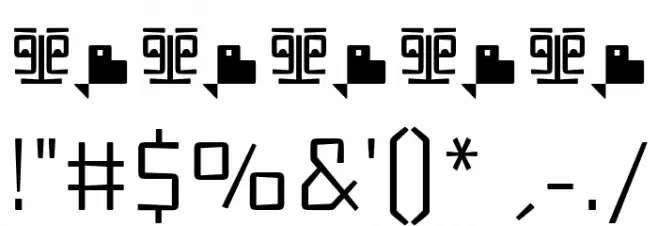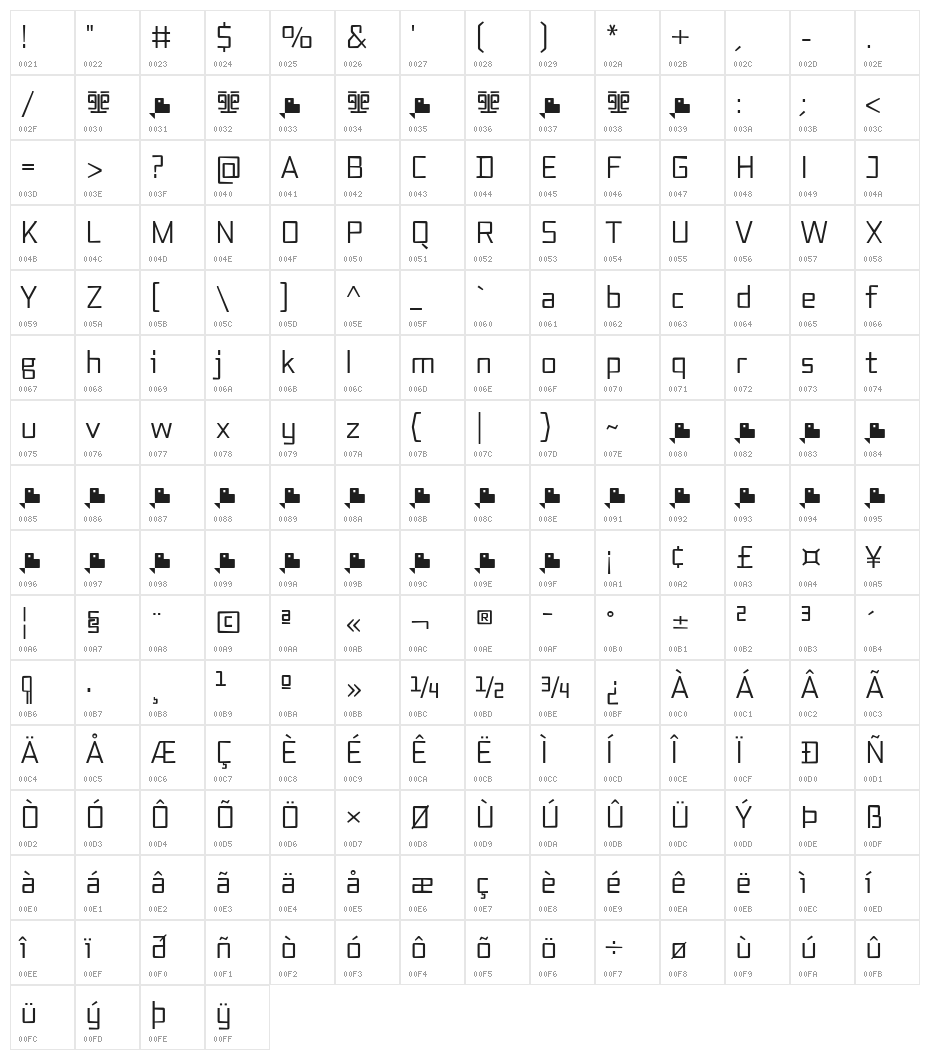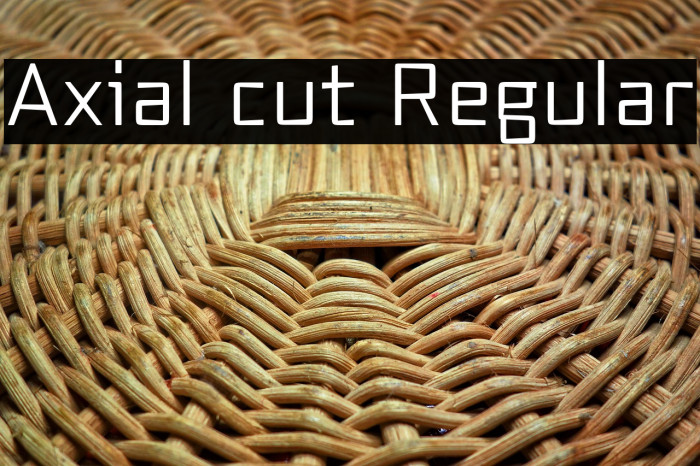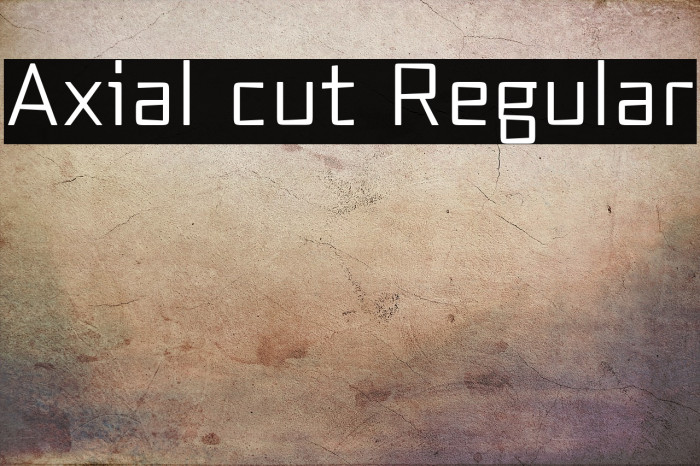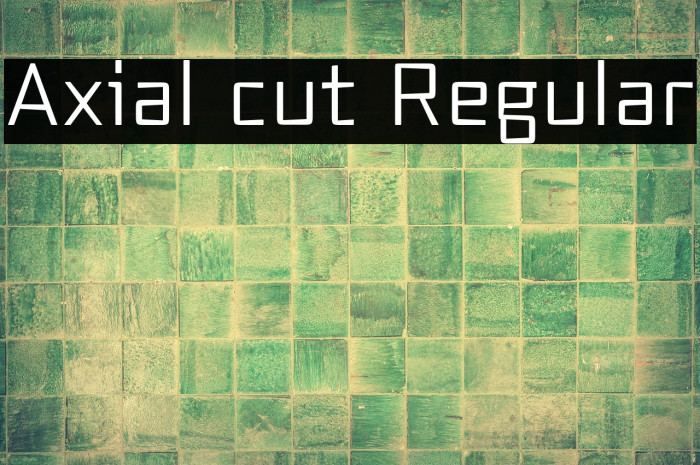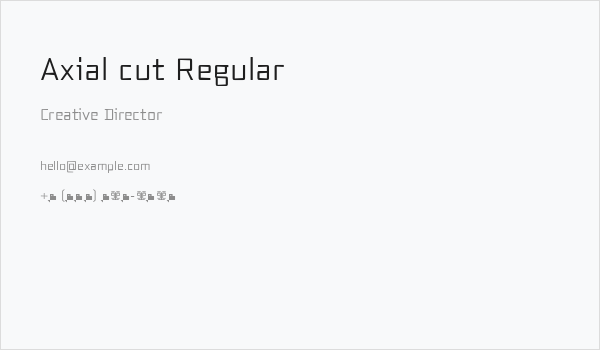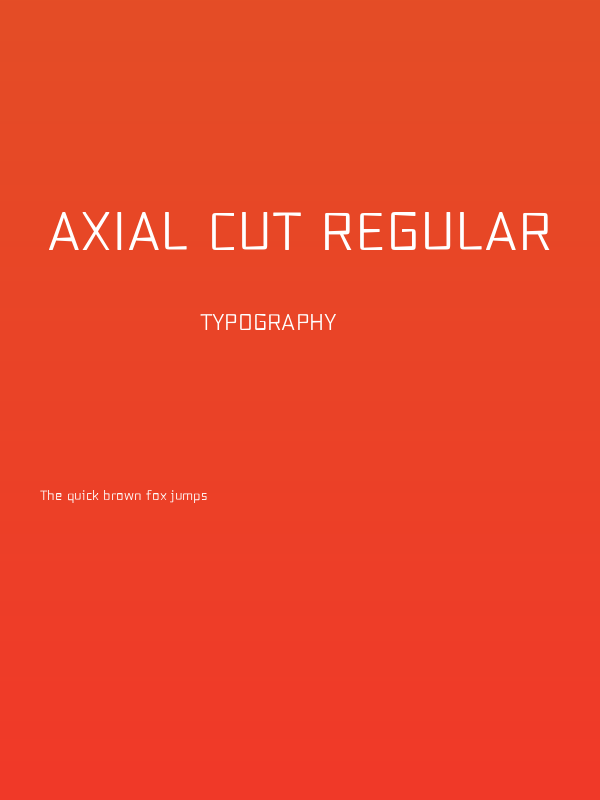
Axial cut Regular Font
Axial cut Regular Description
This font features a modern, geometric design with clean lines and a structured appearance. The characters are uniform in width, giving it a monospaced feel, though it is not strictly monospaced. The uppercase letters have a distinct angularity, with sharp corners and straight edges, while the lowercase letters maintain a similar geometric style, offering a cohesive look across the typeface. The numerals and special characters follow the same design principles, ensuring consistency throughout. This font's unique style makes it suitable for projects that require a contemporary and technical aesthetic.
Axial Cut is a sans serif typeface family (Latin Extended-A), a contemporary and rounded evolution of geometric screen fonts, but this time the letters are built on an axial axis that results in against trapezoidal shapes, unions with the antlers reduced,
| Use Case | Logos, Headlines, Digital Interfaces |
| Proposed Projects | Ideal for tech branding, digital interfaces, modern posters, and architectural designs. |